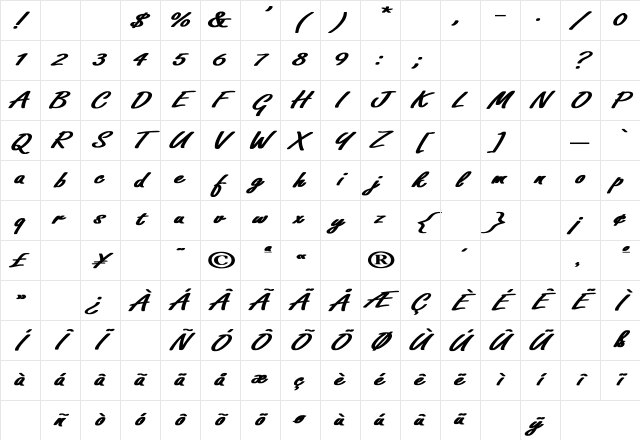
Freeport-Normal Ex Bold Bold
Freeport-Normal Ex Bold Family
Complete Freeport-Normal Ex Bold Bold glyph index. Displaying only characters natively supported by Freeport-Normal Ex Bold Bold font.
Design Context for Freeport-Normal Ex Bold
Freeport-Normal Ex Bold is a composed and adaptable typeface that performs quietly and consistently across a wide range of design contexts. Its bold stroke weight gives it real presence on the page.